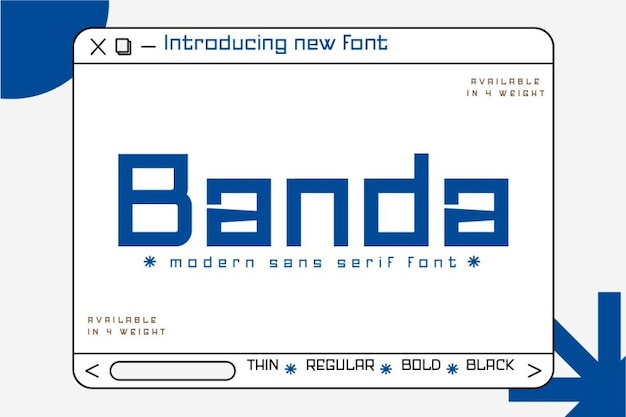
Banda is a modern font created for you in 4 weights. Its bold and regular design is ideal for either your personal or professional projects. Download it now and start creating!
Banda Black (800)
Banda Bold (700)
Banda Regular (400)
Banda Thin (200)